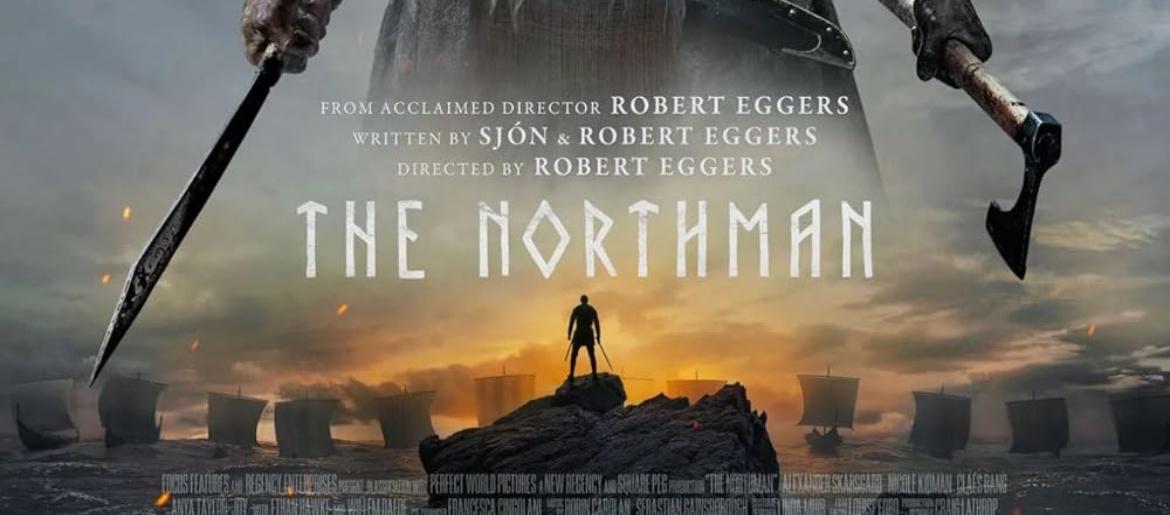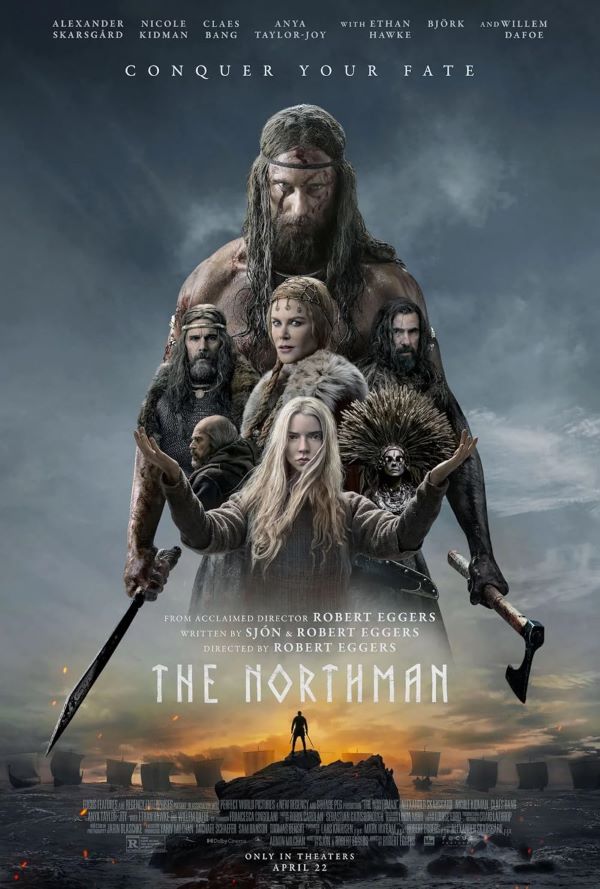
The Northman Font
What Font is The Northman?
The The Northman Font used in the film’s title is a custom-designed typeface made specifically for the movie’s logo. Because the exact font isn’t publicly released, designers looking to emulate its look can use a free alternative font inspired by its runic, angular styling—perfect for projects with a Viking or mythic historical vibe.
About The Northman
The Northman (2022) is an epic historical fantasy directed by Robert Eggers. Set in the Viking Age, the story follows Prince Amleth as he rises from exile to seek revenge for his father’s murder. The typography of the title—sharp, tall letters with rune-like features—echoes the film’s themes of ancient legend, raw strength and the wild northern landscape.